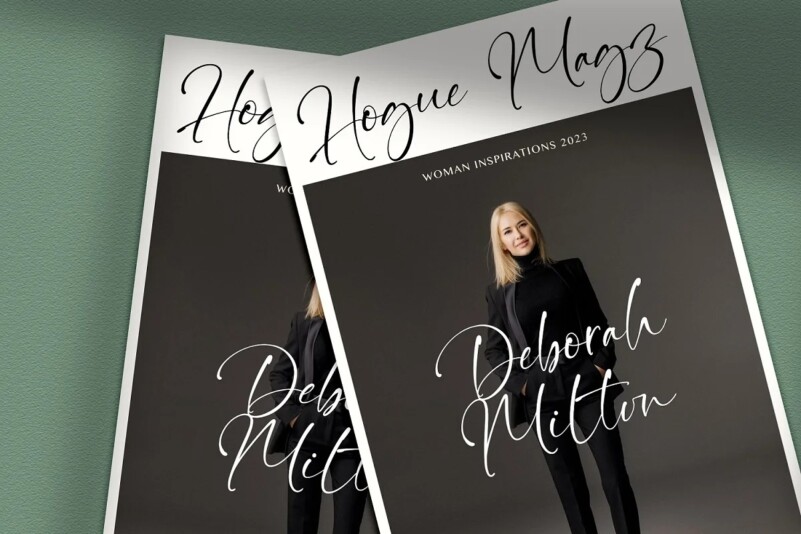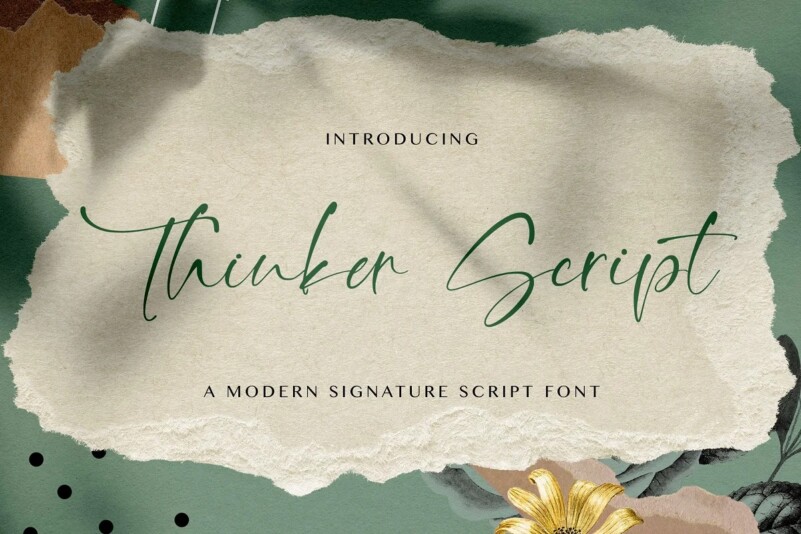
Thinker Script Font
Thinker Script Font – A fantastically elegant connected script, making it possible for you to trigger beautiful hand-made calligraphy in an immediate. It has beautiful and well balanced characters and as a result, it matches a wide pool of designs. Add it to your most creative ideas and notice how it makes them come alive!